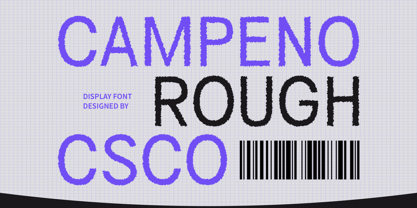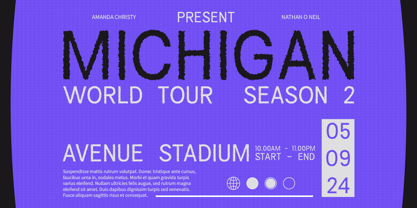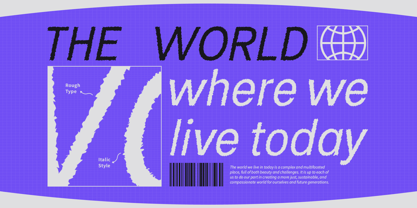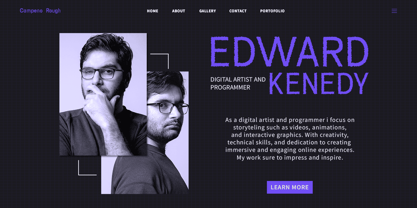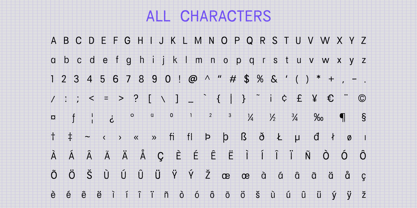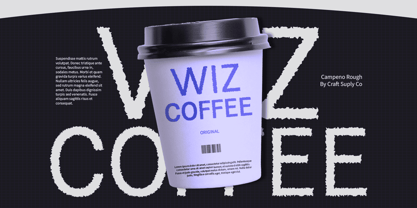
Campeno Rough
by Craft Supply Co
The Campeno Rough Font Family was designed by Trio Nazzar Saputra, Wahyu Hadi Yuana and published by Craft Supply Co. Campeno Rough contains 2 styles and family package options. More about this family
Campeno Rough: Geometric Sans-serif Font
Rough Vibes with Geometric Precision
Campeno Rough is a geometric sans serif font that emanates a rough, handcrafted vibe. Its unique design combines geometric precision with a raw edge, making it perfect for displays that require a balance of modernity and ruggedness.
Ideal for Eye-catching Displays
Designed to command attention, Campeno Rough is perfect for headlines, banners, and other display purposes. Its rough yet geometrically precise aesthetic ensures that your message is both seen and remembered.
Versatile and Impactful
Despite its rough appearance, Campeno Rough is versatile and impactful. Its sans-serif style makes it suitable for a wide range of projects, from branding to digital designs, where a font with a strong visual impact is essential for making a statement.
Perfect for Adding a Modern Edge
Campeno Rough is ideal for projects that require a font with a modern edge. Whether you’re designing a poster, logo, or website, this font will undoubtedly add a unique and memorable element to your designs.
Designers: Trio Nazzar Saputra, Wahyu Hadi Yuana
Current Foundry: Craft Supply Co